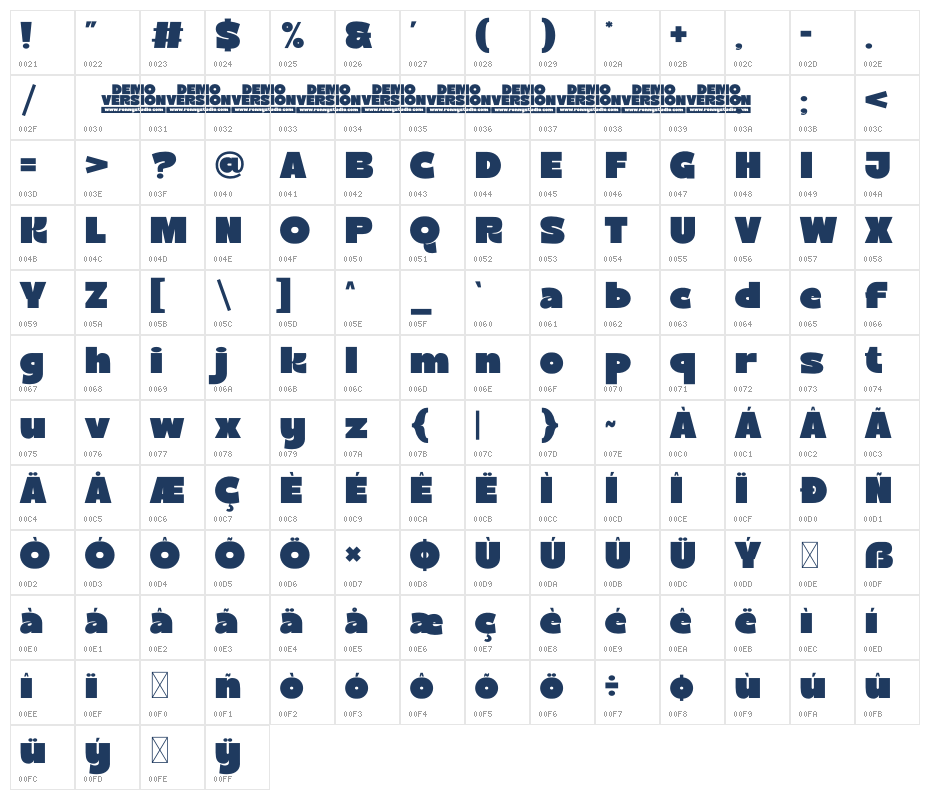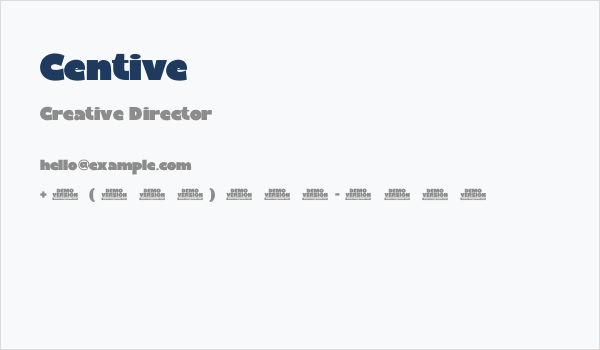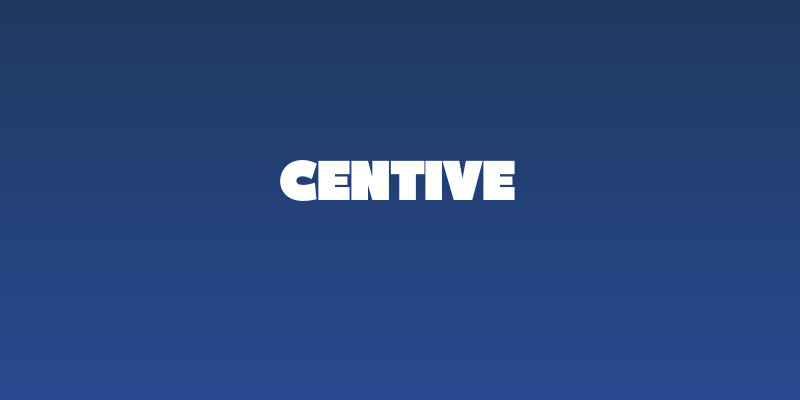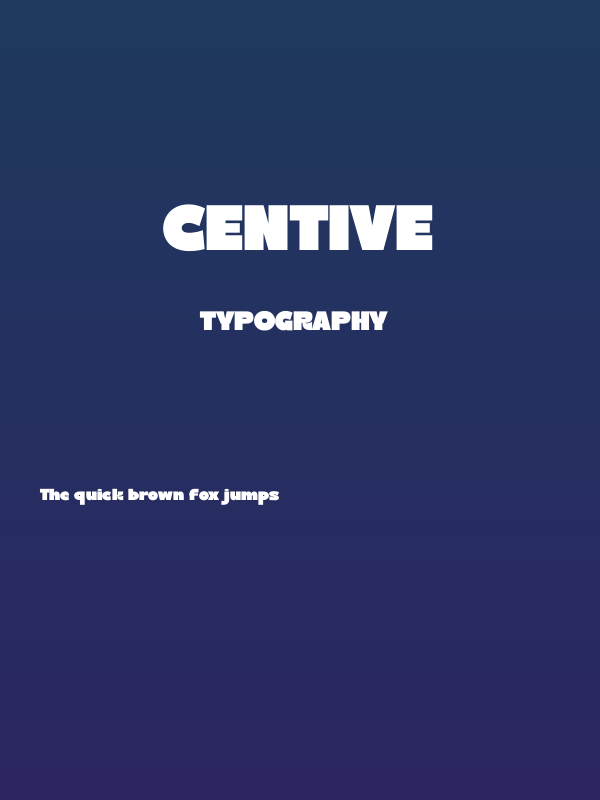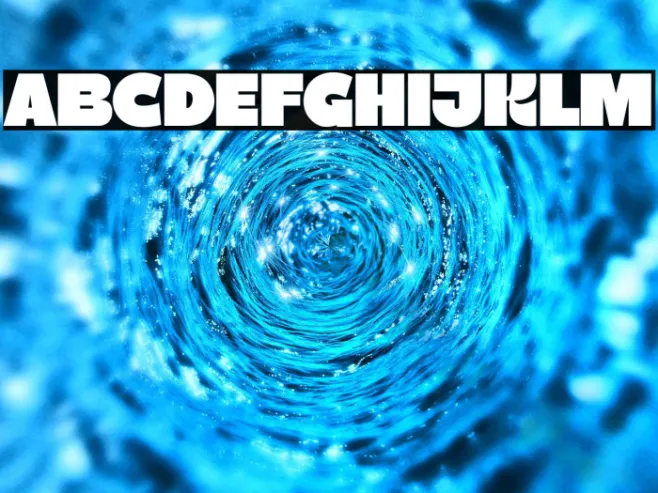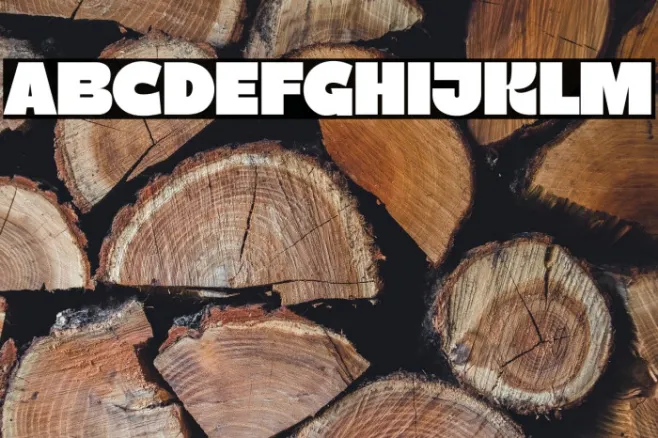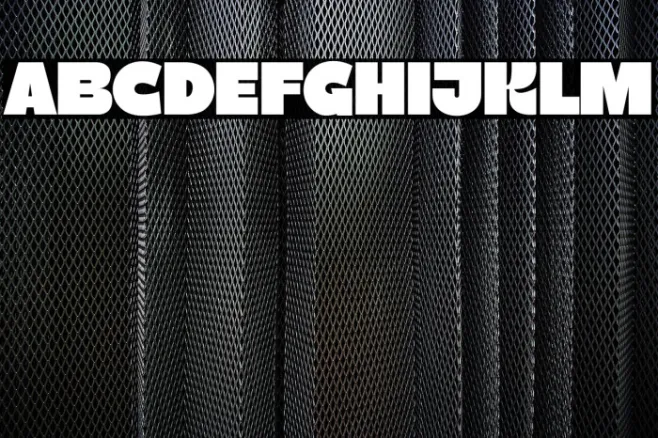
Centive Font
Centive Description
Bold, chunky, playful sans-serif font with rounded edges and a strong presence.
CENTIVE UPPERCASE
CENTIVE LOWERCASE
CENTIVE OTHER CHARS
| Overall Style | Modern, Playful, Bold |